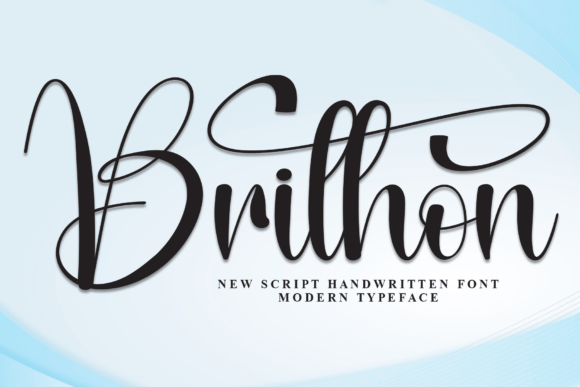
The Joyful Brithon Font: Adding Playfulness to Your Designs
I’ll never forget the time I was working on a children’s party invitation project, and my client asked for a font that was “fun, bouncy, and playful.” I scoured the internet, trying out font after font, but nothing seemed quite right. That was until I stumbled upon the Brithon Font. With its hand-drawn charm and energetic letterforms, it was the perfect fit for the project. In this article, I’ll share my experience with the Brithon Font, its features, and how to make the most of it in your designs.
A Personal Review of Brithon Font
• ✨ The playful, bouncy letterforms that add a touch of whimsy to any design
• ✅ The hand-drawn charm that gives the font a personal, human feel
• 🎉 The versatility of the font, which works well for kids’ projects, party invites, logos, packaging, and more
• 💡 The way the font radiates joy and imagination, making it perfect for designs that need a lighthearted touch
While the Brithon Font is a delightful addition to any design, there are a few things to keep in mind:
• ⚠️ The font may not be suitable for body text or long-form content, as its playful nature can be distracting in large quantities.
• 🤔 Some users may find that the font’s bouncy letterforms can make it difficult to read at small sizes.
The Story Behind Brithon Font
The Brithon Font was designed with one goal in mind: to bring a touch of playfulness and joy to designs. Its creator, a freelance designer, was inspired by the whimsical world of children’s books and the magic of imagination. With the Brithon Font, designers can add a dash of fun and creativity to their projects.
Q: What type of projects is the Brithon Font best suited for?
A: The Brithon Font is perfect for kids’ projects, party invites, logos, packaging, and any design that needs a lighthearted and cheerful vibe.